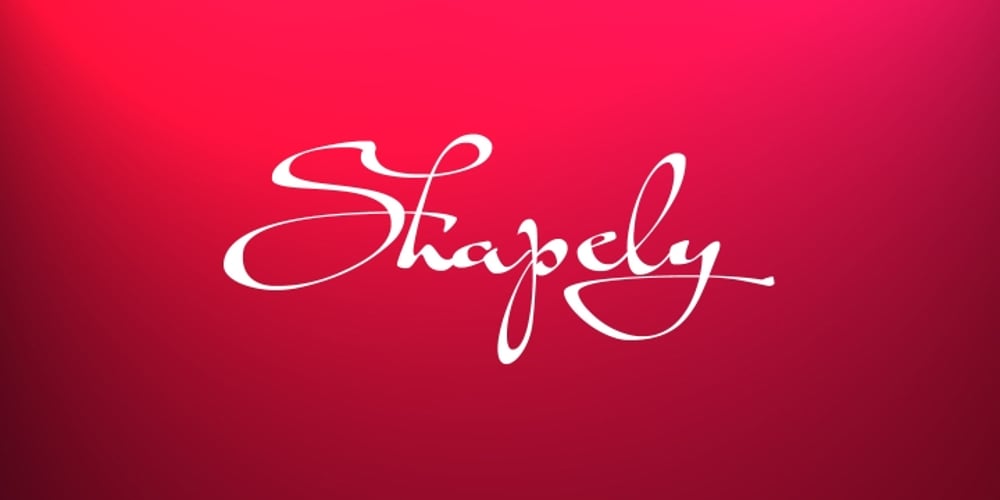
Shapely Font Family was designed by Anton Scholtz and published by Scholtz Fonts. Shapely contains 1 styles and family package options. Shapely is designed with elements of classical calligraphy expressed in a very modern idiom. It embodies the Scholtz signature – casual, extravagant, bold design with an underlying attention to detail and legibility. Numerous ligatures emphasize immediacy and the handwritten quality of the finished product creates a feeling of variety, spontaneity and flexibility. The font abounds with extravagant flourishes, however, with almost every character, plainer alternatives are available through OpenType technology. This frees the user to put an individual stamp on his use of the font. There are a total of 70 ligatures and alternate characters that use OpenType technology to expand the flexibility and power of Shapely. The font contains all upper and lower case characters, punctuation, numerals and mathematical operators, as well as all accented characters used in European languages.